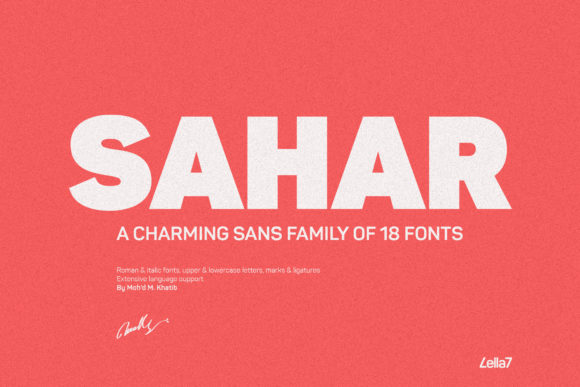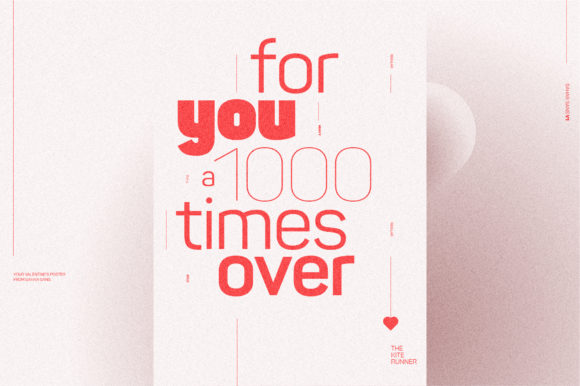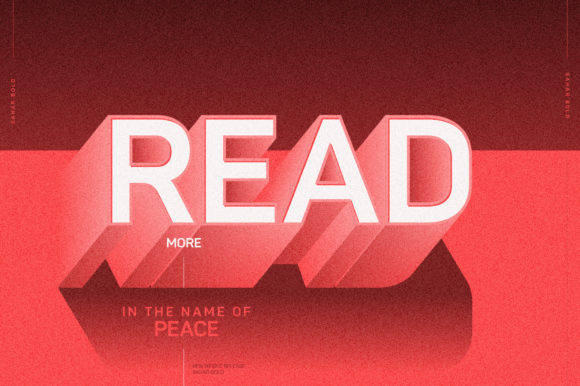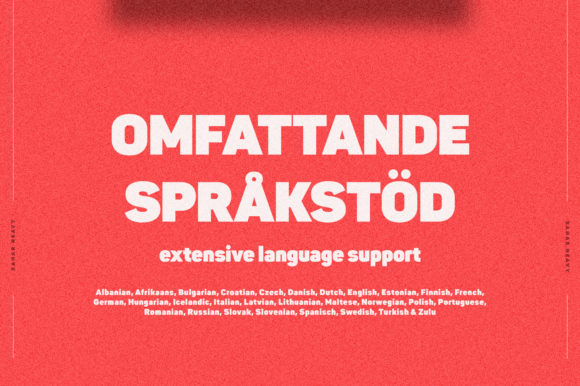
Sahar Font: Charming Sans Serif for Modern Logo Design & Branding
About the Sahar Font
Add a touch of class to your work with the Sahar Font, a truly exceptional typeface. Powerful, dynamic and charming. Inspired by the designer wife’s name.
Sahar is Arabic for charm.
Inspired by the word, it’s charming uncompromising style is felt through the controlled letterforms and modern touches. The balance of hard lines and smooth curves renders power and commands attention for each weight of the family. Each font in the family can stand on its own, dynamic and authoritative in their own right.
Sahar’s bold personality makes it ideal for headlines, branding applications, and short impactful statements in posters or packaging. Its strong forms command attention, ensuring maximum visual impact in these contexts. However, its assertive nature makes it less suitable for body text or extended reading; the weight and strong contrast might prove fatiguing.
Consider pairing Sahar with a clean sans-serif like Open Sans for a modern contrast, or a more delicate serif such as Lora to soften its impact and provide readability in supporting text. For a playful touch, a rounded geometric sans-serif like Circular could be used.
The overall impression is one of modern confidence and understated elegance. Its versatility within the weight range allows for flexibility in application, creating a powerful and memorable brand identity.